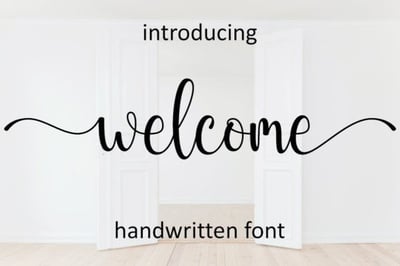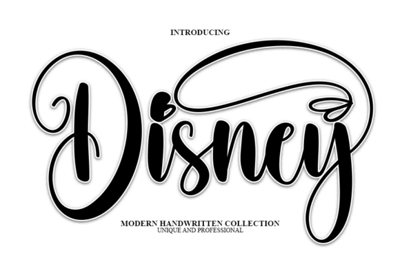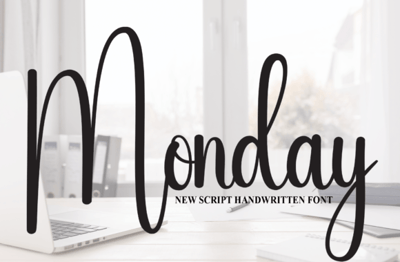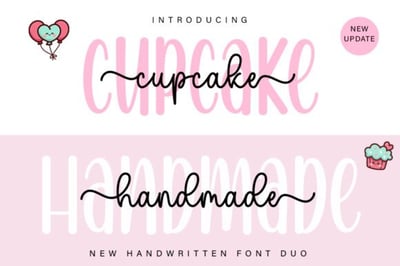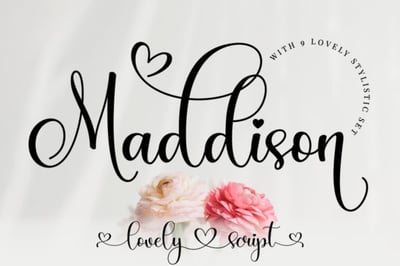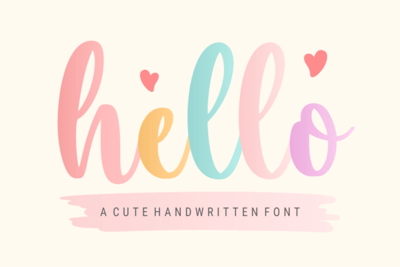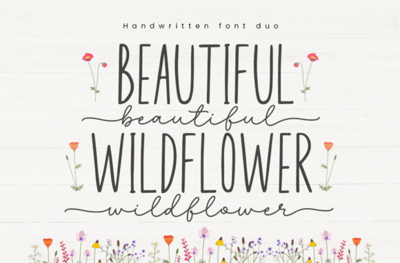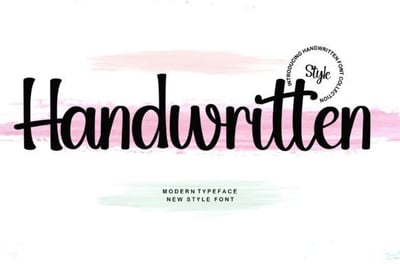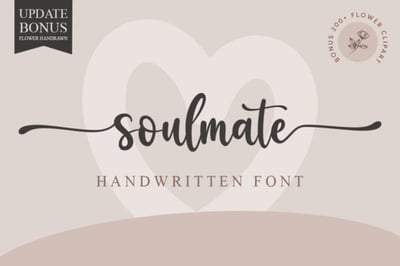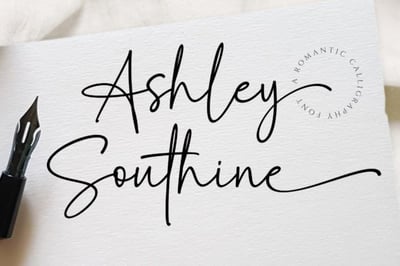
15 Best Artistic Fonts for Stunning Designs: Elevate Your Projects in 2025
In the ever-changing landscape of design, fonts play a crucial role, much like the right ingredients in a recipe. They can turn a lackluster design into a captivating one. Whether you're a professional designer aiming to create a new brand identity, a social media content creator looking to make your posts stand out, or someone planning an event and designing invitations, the choice of font can be a game-changer. Here, we present 15 exclusive and highly sought-after artistic fonts from Creative Fabrica. These fonts are not just characters on a screen; they're powerful tools that can redefine your projects.
1. Soulmate: Elegance Woven in Handwriting
True to its name, Soulmate is the ideal choice for designs that require a touch of elegance and refinement. This handwritten font, with its PUA encoding allowing easy access to a wealth of glyphs and swashes, is a designer's delight. A high-end stationery brand used Soulmate for its luxury wedding invitation line. The intricate details and flowing script made each card a work of art, setting the tone for a sophisticated celebration. From thank-you notes to business cards, Soulmate elevates any project with its understated grace.
2. Handwritten: Blending Trendiness with Elegance
Inspired by timeless calligraphy but with a modern twist, the Handwritten font strikes the perfect balance between elegance and trendiness. A fashion influencer revamped their blog with Handwritten for the titles and headings, giving the site a polished and fashionable look. Its sleek form makes it suitable for everything from magazine layouts to corporate annual reports, adding a touch of sophistication and style.
3. Disney: Unleashing the Magic in Design
The Disney font is like a portal to a world of imagination. Inspired by the enchanting Disney animations, it captures that whimsical and dreamy essence we all cherish. A children's book publisher recently used the Disney font for the cover and chapter titles of a fairytale collection. The result? Sales soared as young readers were immediately drawn to the magical look of the text. From children's party invitations to animated movie posters, this font is perfect for adding that touch of magic to any design.
4. Minimalist: Embracing the Beauty of Simplicity
In a world filled with elaborate designs, the Minimalist font stands out with its clean, sans-serif lines. It adheres to the principle of "less is more," offering a modern and timeless aesthetic. A tech startup recently revamped its website using the Minimalist font for all headings and body text. The sleek, uncluttered look not only enhanced the user experience but also gave the brand a sophisticated, professional edge. Whether it's for a corporate presentation, a minimalist logo, or a sleek mobile app interface, Minimalist brings elegance through simplicity.
5. Thick Black: Making a Bold Design Statement
When you want your design to command attention, Thick Black is the font to go for. Its robust, thick strokes and sharp edges exude strength and modernity. A fitness brand recently launched a new line of products with packaging featuring Thick Black for the product names. The bold, eye-catching text immediately caught the attention of gym-goers, leading to a significant increase in sales. Perfect for sports logos, concert flyers, or any design where you want to make a powerful impact, Thick Black doesn't hold back.
6. Ashley Southine: Injecting Warmth into Design
Ashley Southine is more than just a font; it's like a handwritten story in every character. Inspired by handcrafted strokes, it offers a personal and inviting feel, as if each word was written just for you. A local artisanal coffee roaster rebranded using Ashley Southine for its logo and packaging. The warm, friendly look of the font resonated with customers, creating a sense of community and loyalty. Ideal for projects like personalized greeting cards, local business branding, or any design aiming to build a human connection, Ashley Southine adds a touch of authenticity.
7. Cupcake Handmade Duo: A Match Made for Romantic Designs
The Cupcake Handmade Duo, consisting of a sans-serif and a script font, is a versatile pair that can add a romantic and stylish touch to any design. A greeting card company saw a significant increase in sales during Valentine's Day after using this duo for its card designs. The combination of the two fonts created a harmonious and sophisticated look that customers loved. Whether it's for wedding stationery, product labels, or social media graphics, this duo offers endless creative possibilities.
8. Hello Honey: Adding Sweetness to Your Designs
Hello Honey is the font equivalent of a warm, sweet embrace. With its handwritten style and charming heart-shaped swashes, it's hard not to be charmed by its cuteness. A wedding planner designed a series of save-the-date cards using Hello Honey, incorporating the heart swashes to frame important details. The cards were an instant hit, setting a romantic tone for the upcoming nuptials. Beyond weddings, it's great for Valentine's Day promotions, cute Instagram captions, or any project that needs a dose of sweetness.